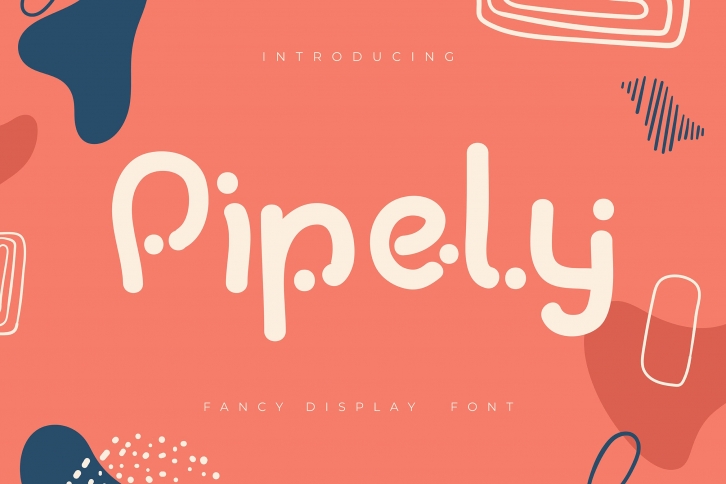
Pipely is a trendy and unique font with an authentic style. It was designed by Vunira and it's a great choice for creative people who need such a font. It was released on November 16, 2020 and the file size is 18.56 MB. Pipely will add an organic vibe to any design idea!